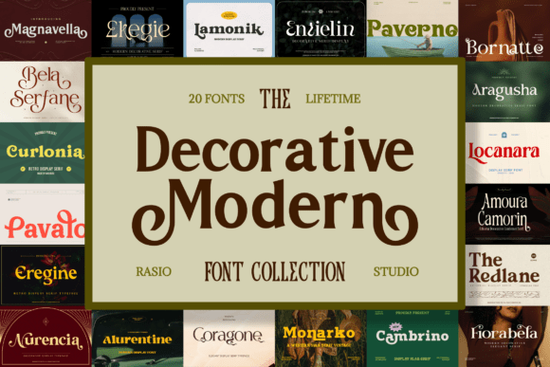
If you're looking for a set of display fonts that feel fresh but never fussy fonts that work well for social graphics, greeting cards, or boutique product labels the Decorative Modern Font bundle is worth your time. It’s not just another collection of overly ornate typefaces. Instead, it offers 20 carefully designed decorative display fonts that balance clean modern structure with thoughtful ornamentation: subtle flourishes, intentional curves, and letterforms with quiet personality. You’ll find options that suit minimalist branding as easily as they do handcrafted packaging or wedding stationery.
What makes these fonts different from other decorative options?
Many decorative fonts lean too far into either trendiness or tradition making them hard to reuse across projects without feeling dated or out of place. The Decorative Modern Font bundle avoids that by anchoring each design in strong typographic fundamentals. Think of it like choosing furniture that’s stylish and comfortable: the details catch the eye, but the underlying rhythm keeps things legible and cohesive.
For example, some fonts in the collection use soft geometric shapes with delicate line endings great for lifestyle brands or café menus. Others add light shadowing or layered outlines, giving depth without sacrificing clarity at small sizes. And because all 20 fonts share a consistent design sensibility, mixing two or three together feels intentional, not chaotic.
Where do designers actually use these fonts?
You’ll see these fonts shine in places where tone and identity matter more than neutrality:
- Print-on-demand products: Tote bags, mugs, and wall art benefit from bold, characterful typography especially when paired with simple illustrations or solid-color backgrounds.
- Small business branding: A local florist, ceramic studio, or candle maker can use one of these fonts for their logo or packaging without needing custom lettering.
- Digital content: Instagram story headers, Pinterest pins, and email banners gain visual distinction without relying on heavy graphics.
- Craft projects: Vinyl cutters and Cricut users appreciate clean vector files and well-spaced characters both included here.
How does this bundle fit alongside other popular Creative Fabrica fonts?
If you already own Geista Mond, you’ll notice how its warm, slightly retro serif complements the sharper, more stylized forms in the Decorative Modern Font bundle. Likewise, Bring Vacation brings playful energy ideal for travel-themed designs while this collection leans into refined expressiveness. For wedding-related work, the Wedding Collection offers timeless elegance, whereas these fonts give you room to experiment with moodier, more contemporary invitations or signage.
And if you’ve used Elora Maison before, you’ll recognize the shared attention to spacing and texture but here, the emphasis shifts toward bolder presence and visual impact rather than subtle sophistication.
Are the fonts easy to use right away?
One thing to keep in mind: these are display fonts, not text fonts. They’re meant for headlines, logos, quotes, and short phrases not long paragraphs. That’s not a limitation it’s by design. Using them where they’re strongest gives your work clarity and confidence.
Looking for real-world examples?
Try pairing Aurora Script with a neutral sans-serif for contrast in a product label. Or layer Lume Display over a textured background for social media banners. You’ll get results that feel personal, not templated.
Before downloading or purchasing, ask yourself: Do I need fonts that help my project stand out without shouting? Will I use them across multiple formats digital, print, and craft? If yes, this bundle is a practical, versatile choice not just another aesthetic option.